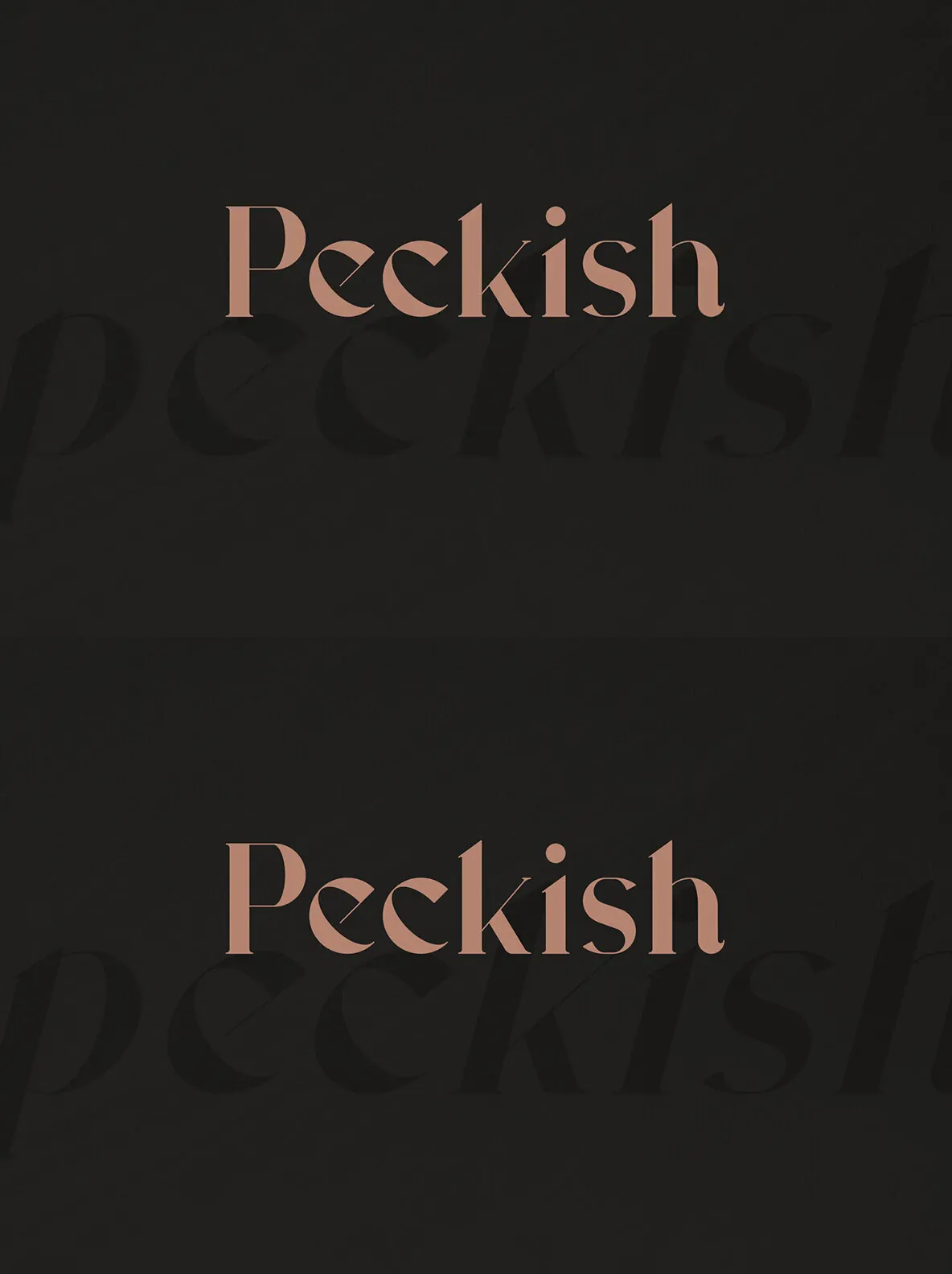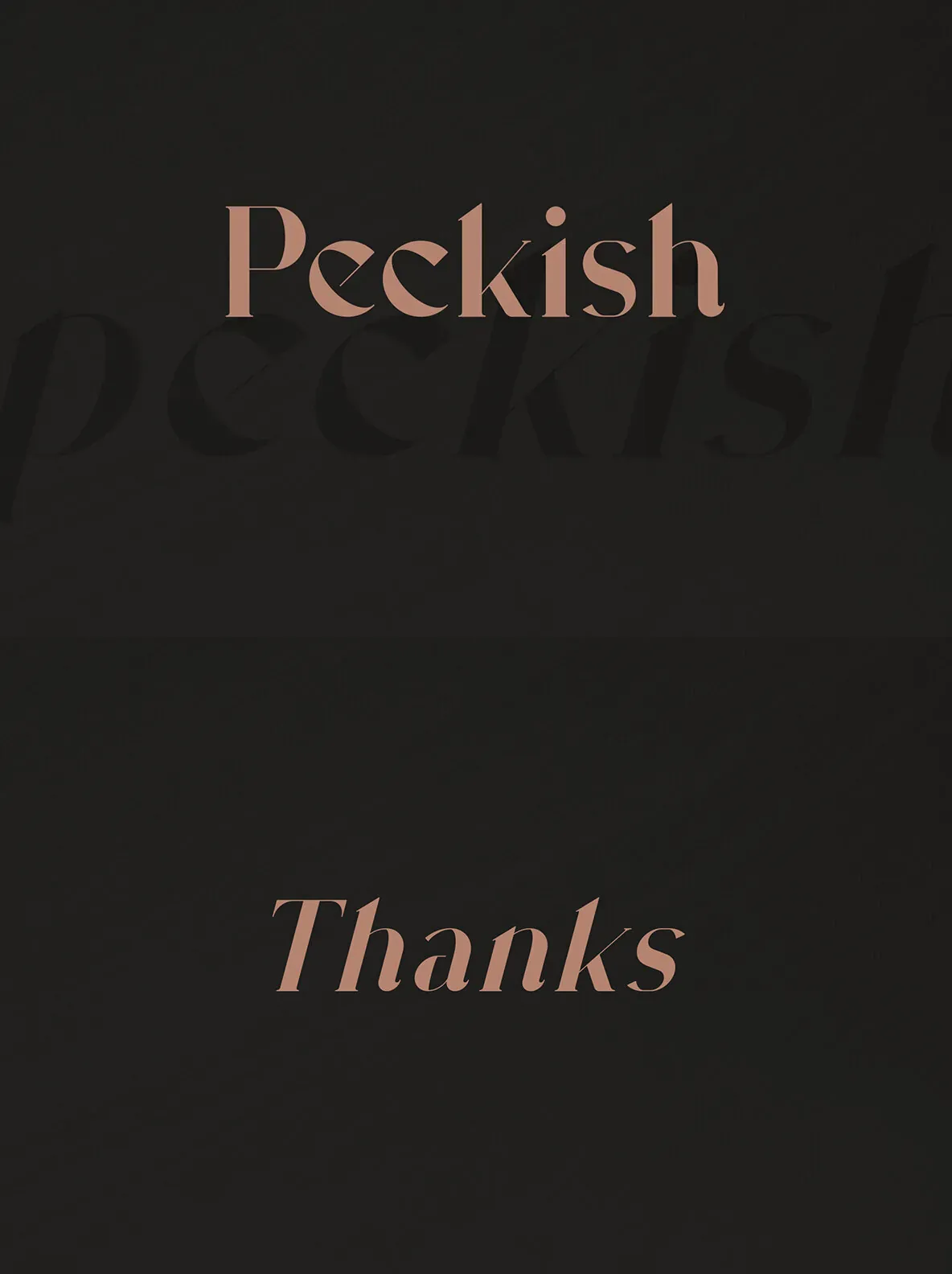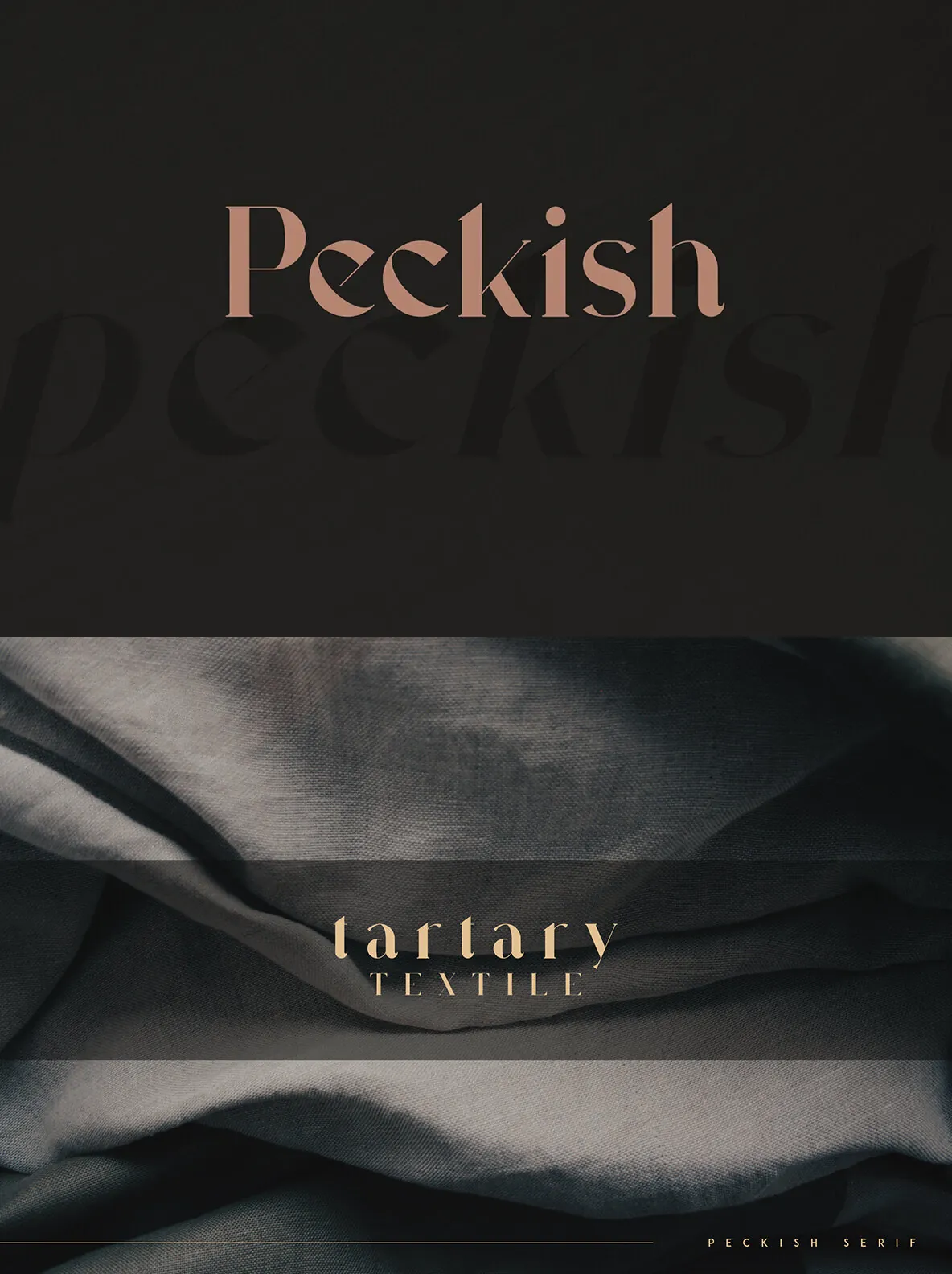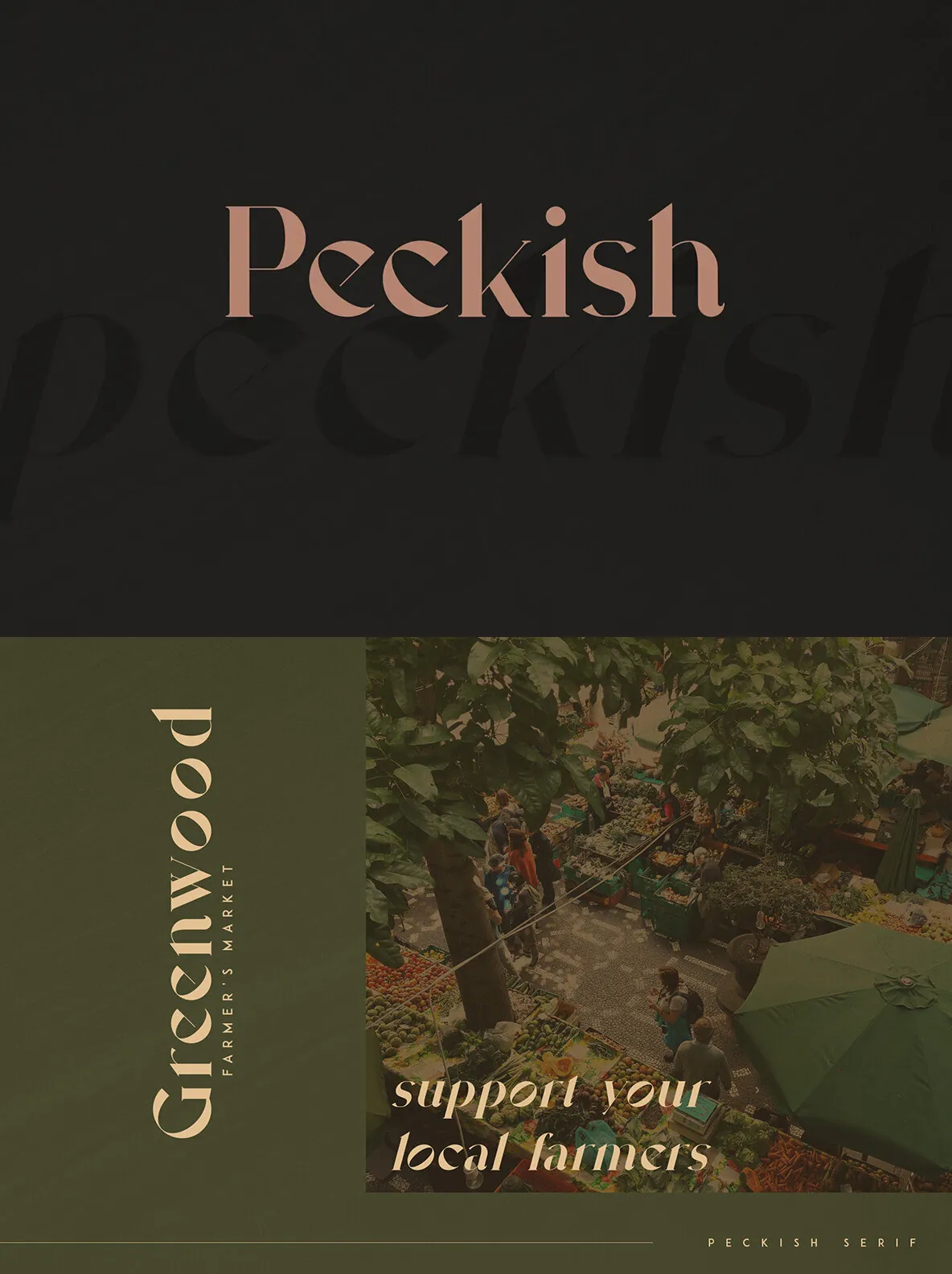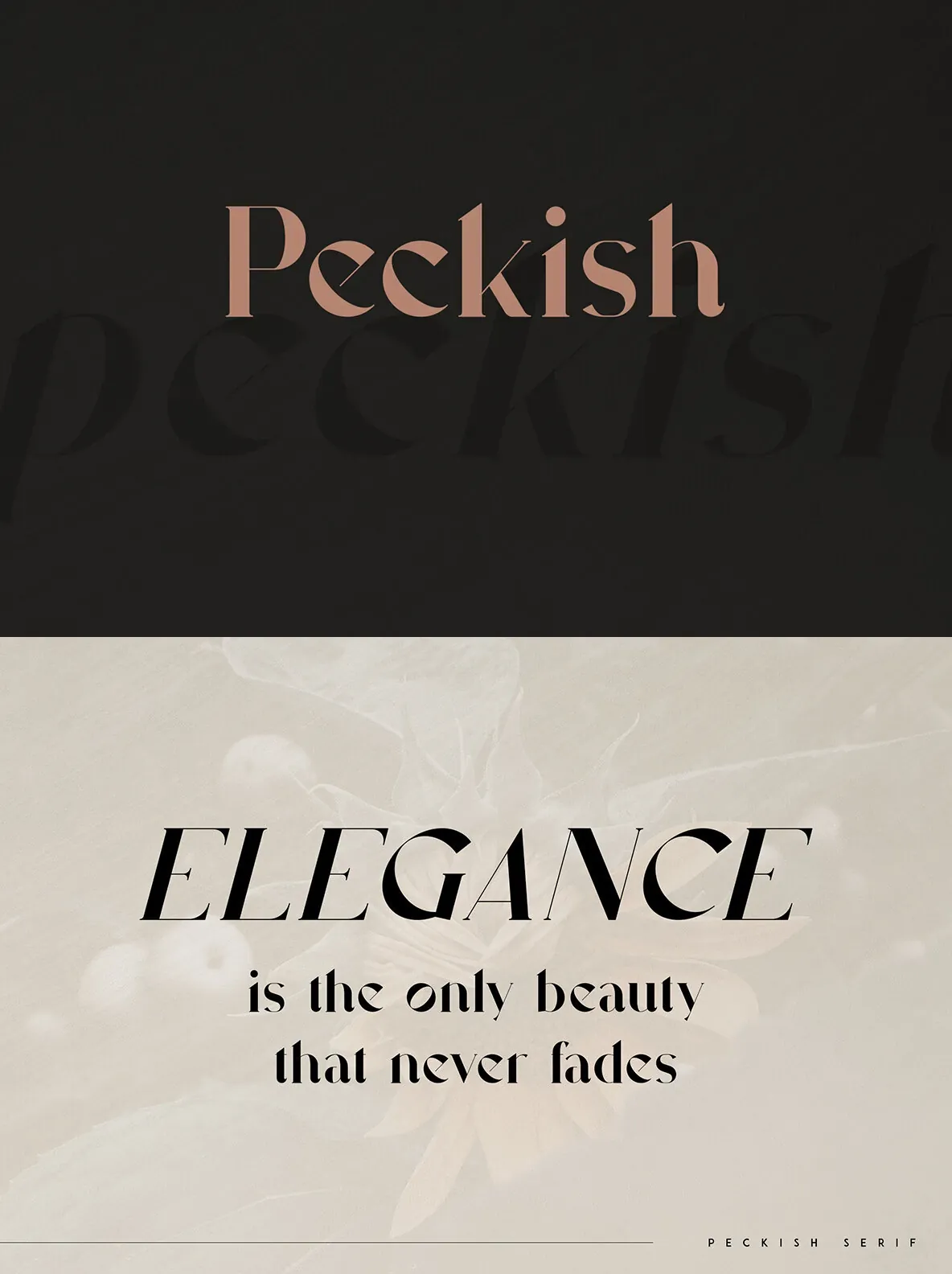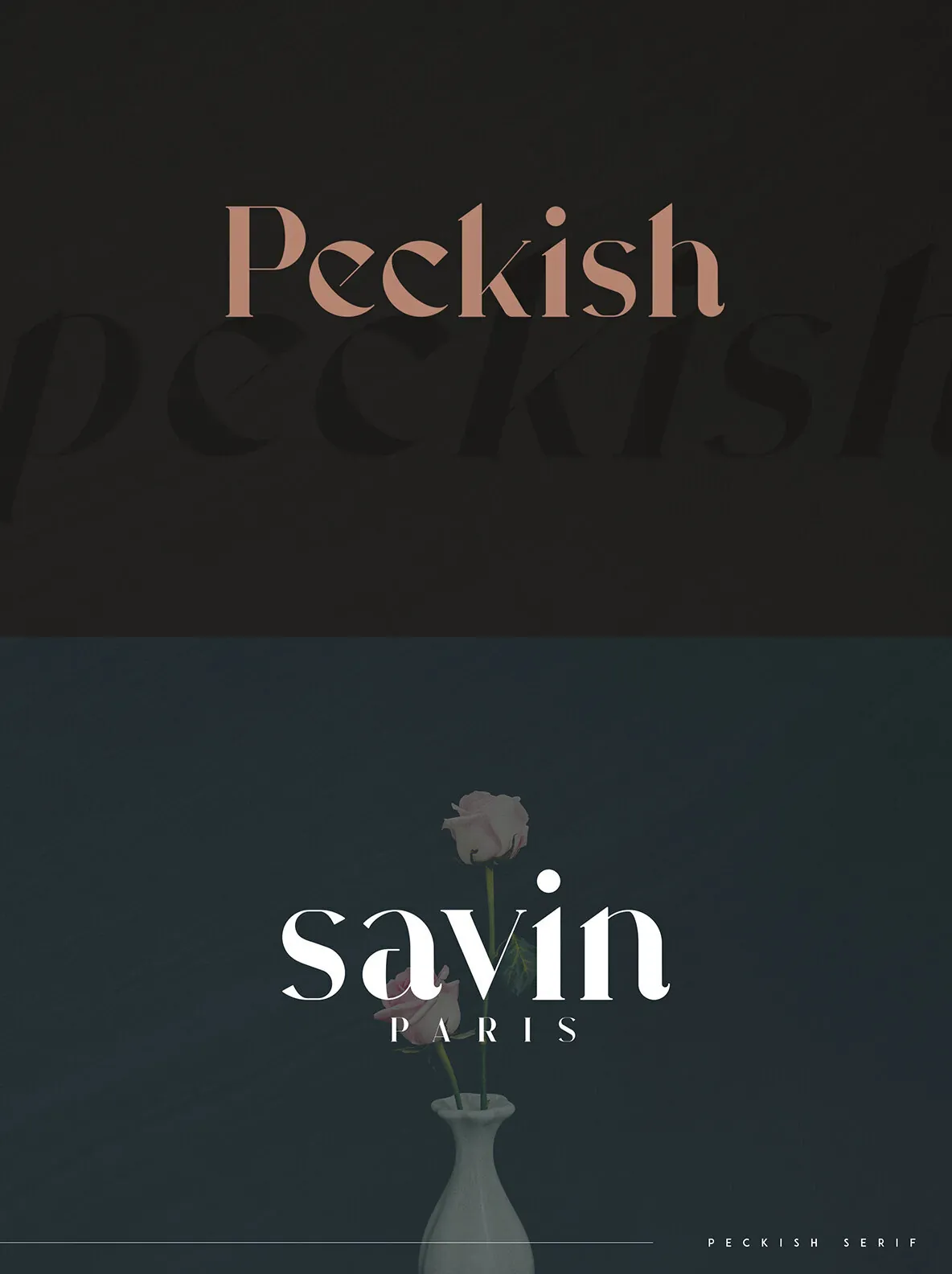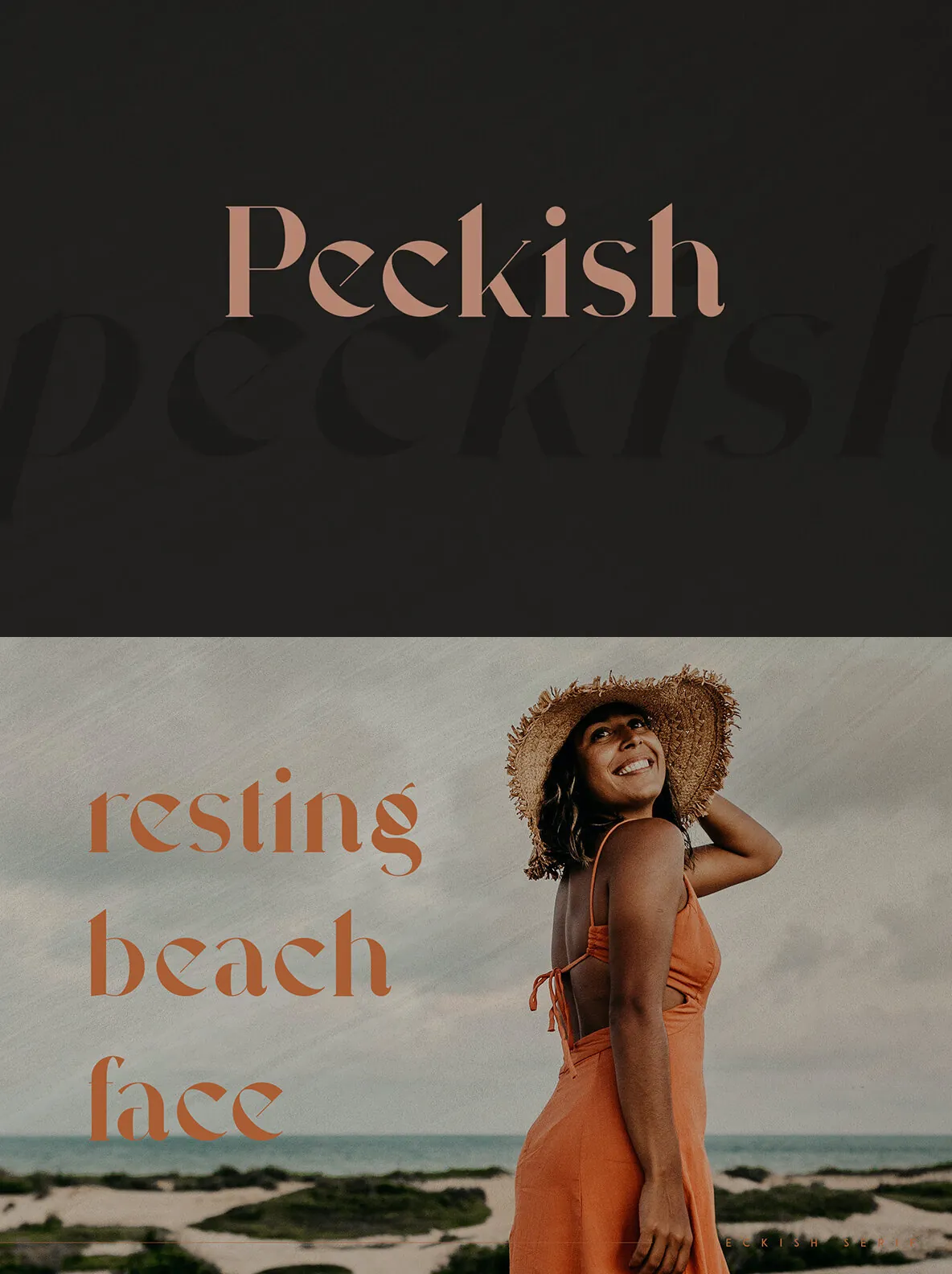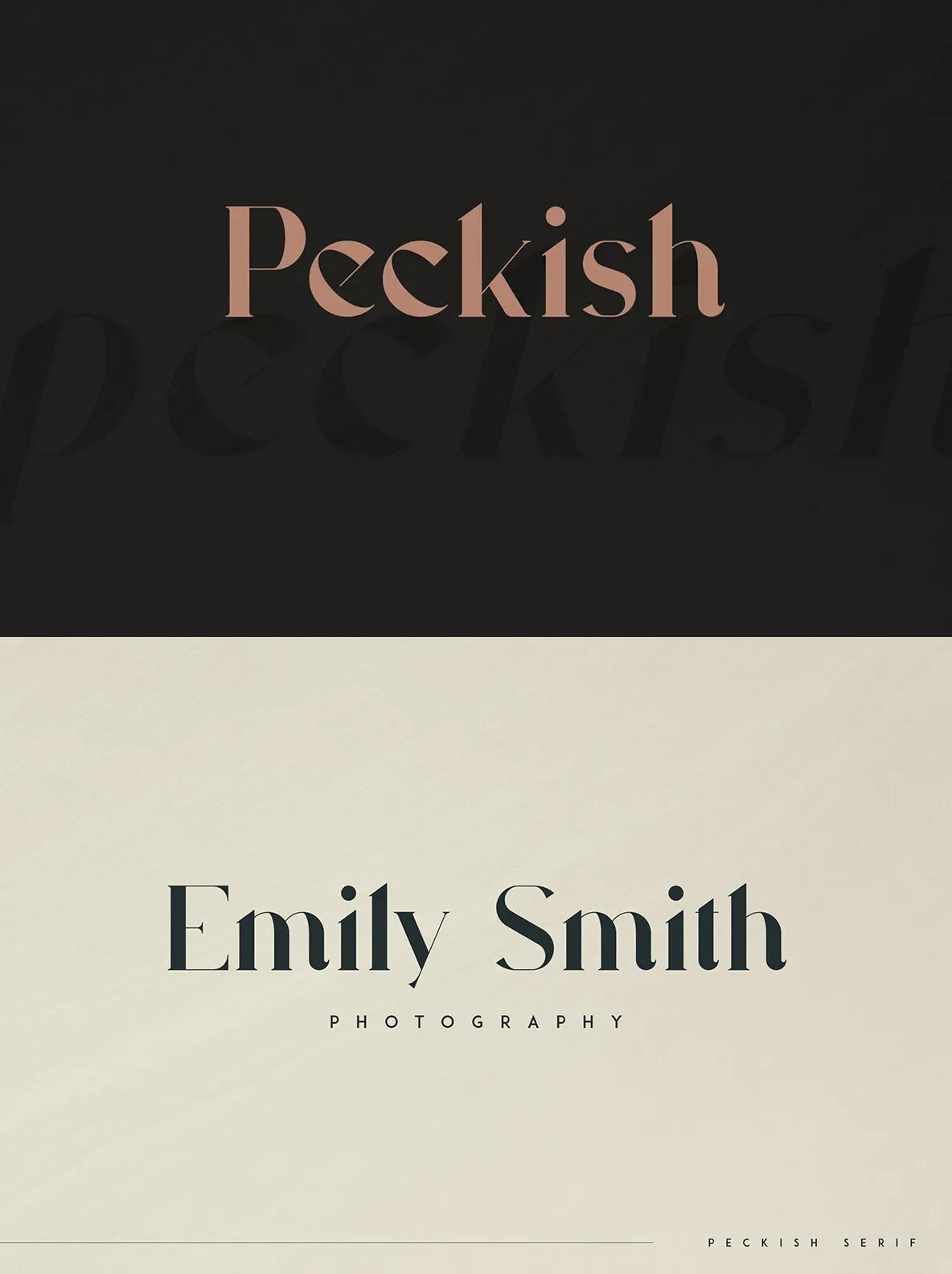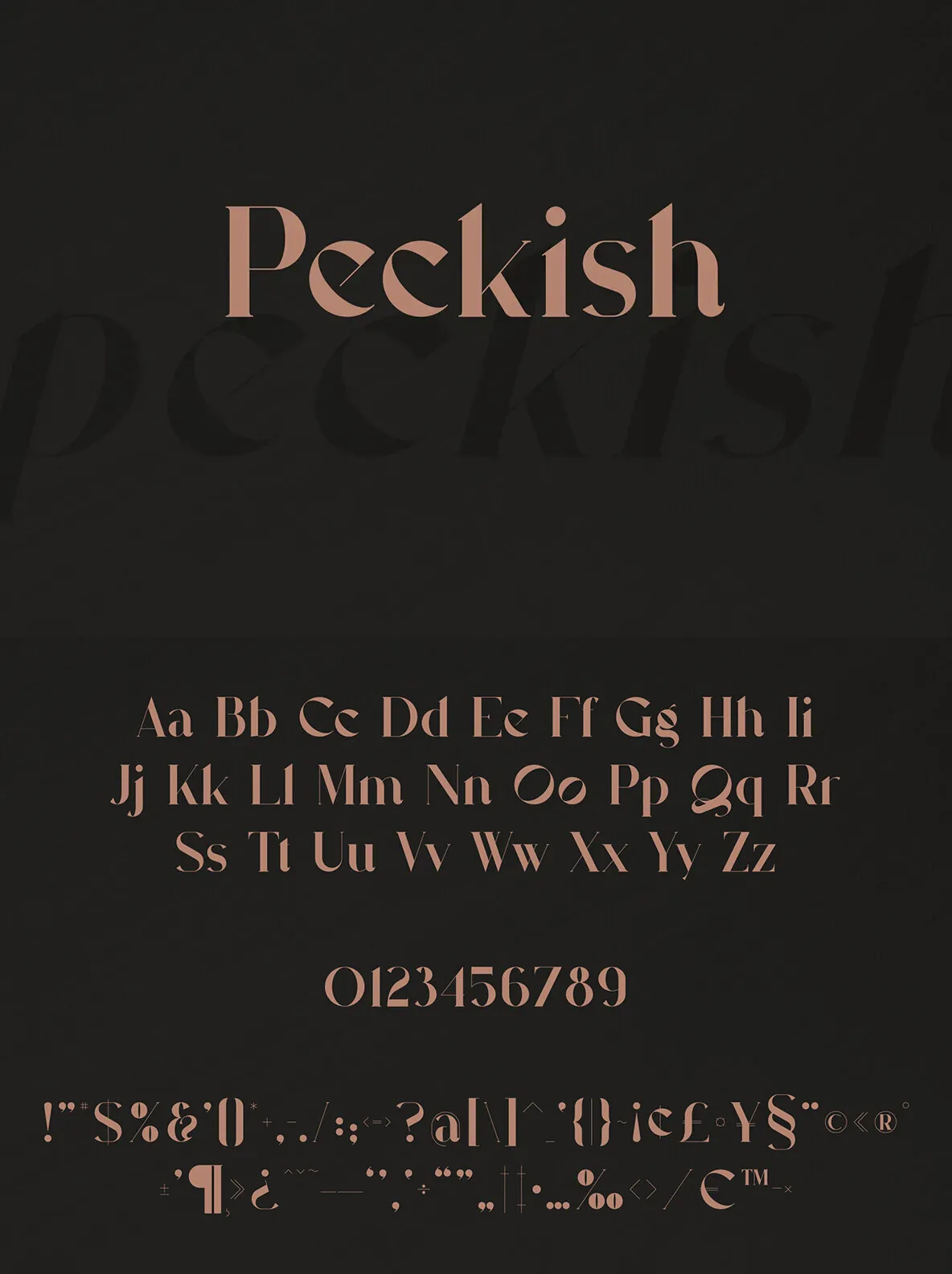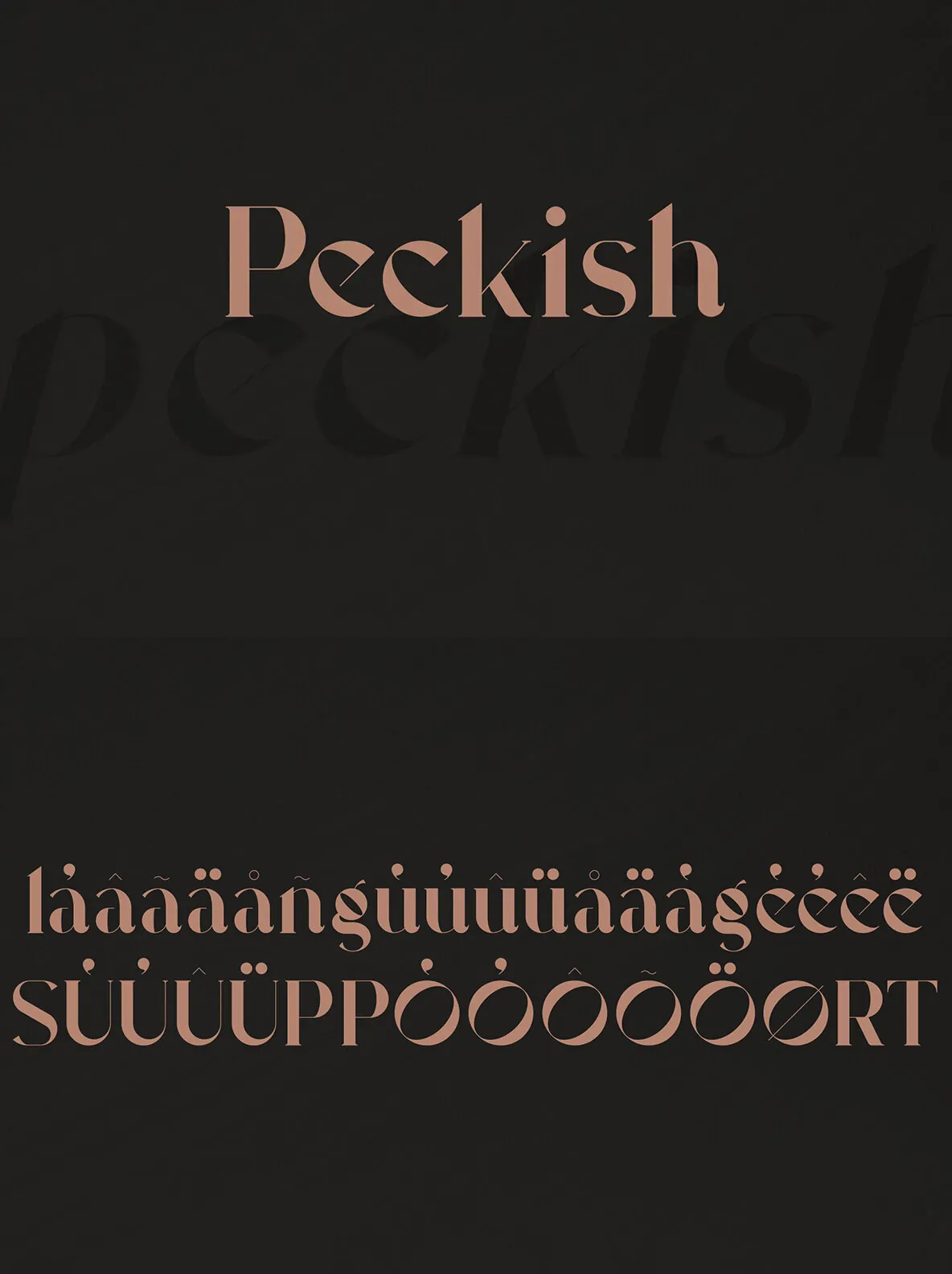
Peckish: Serif Details with Editorial Poise
A serif font design published by VP Creative Shop, Peckish brings a composed, classic tone to contemporary layouts. Its serif structure reads clearly while keeping a distinctive presence, making it a strong choice for branding, packaging, and editorial design where typographic character matters.
Use Peckish when you want a serif that feels confident and considered across print and digital work. It suits headlines, logos, and short-form text where letterforms need to hold attention without losing refinement. Designed for designers who value clean typography, it supports polished outcomes across a wide range of creative applications.